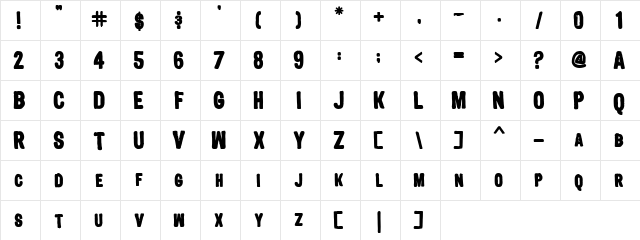
SM_bournisM Bold
| Foundry | Dan Meyer (smashmethod) |
| Designer | Dan Meyer (smashmethod) |
Design Context for SM_bournisM Typeface
SM_bournisM is a composed and adaptable typeface that performs quietly and consistently across a wide range of design contexts. The heavy weight commands attention and anchors typographic hierarchies.